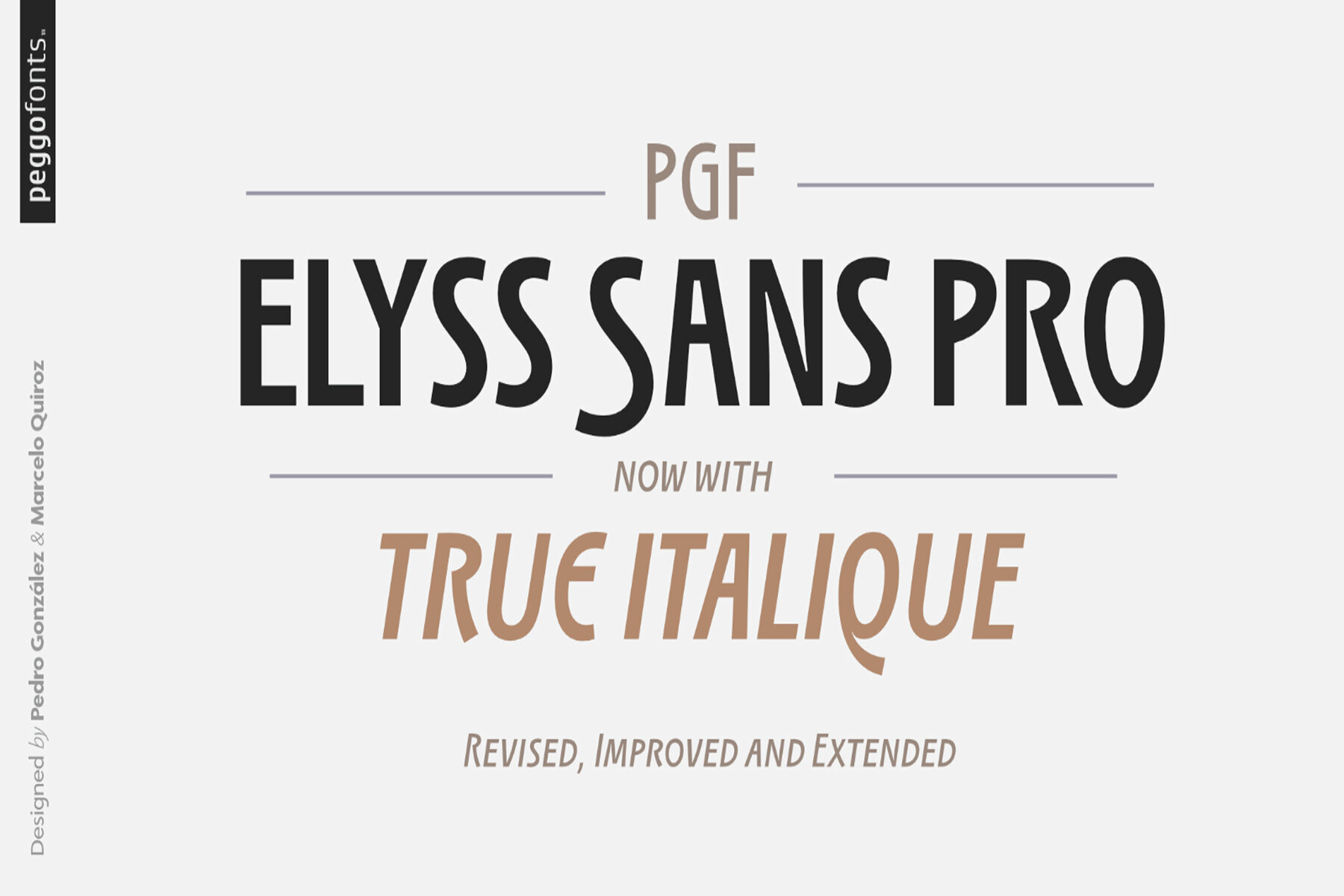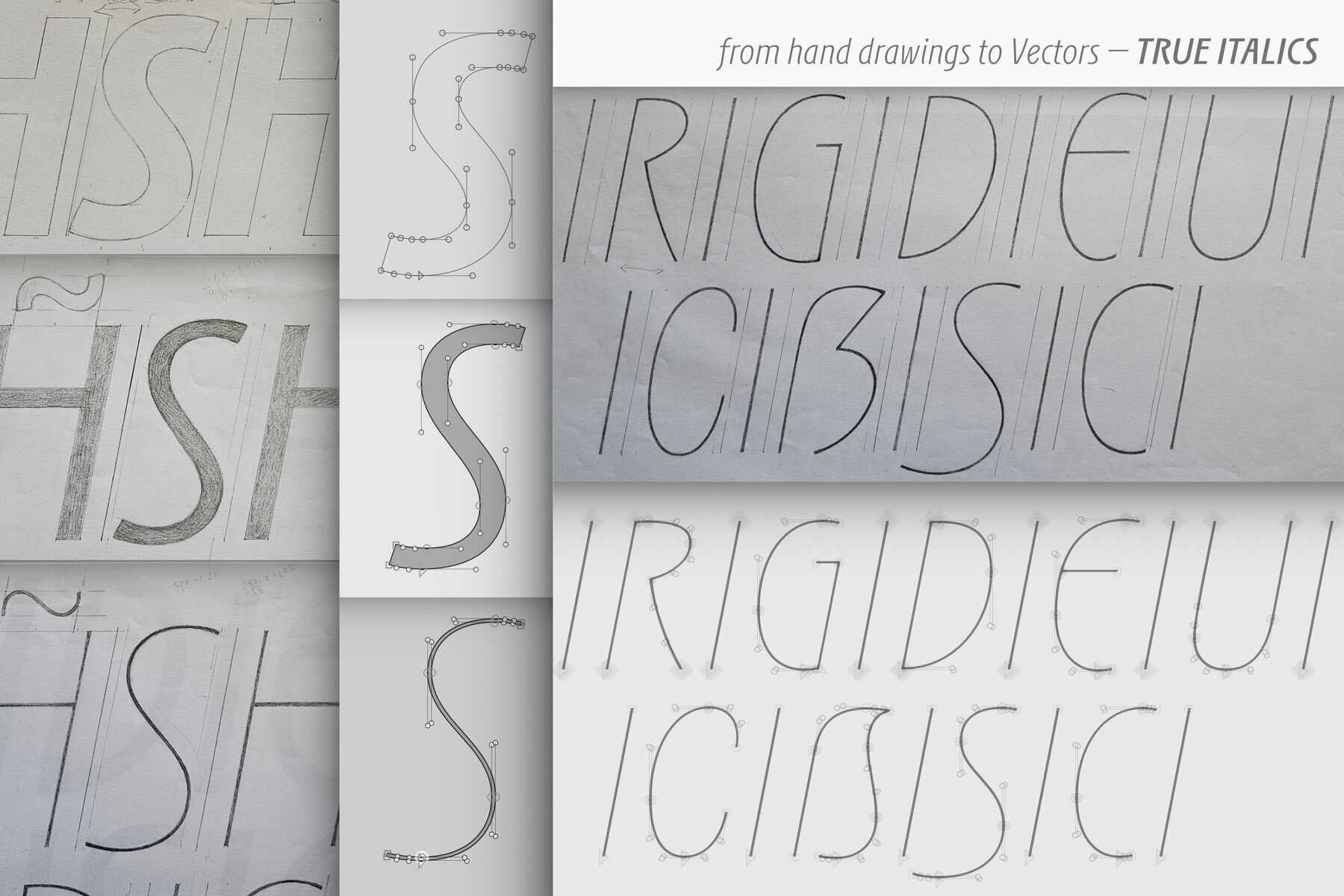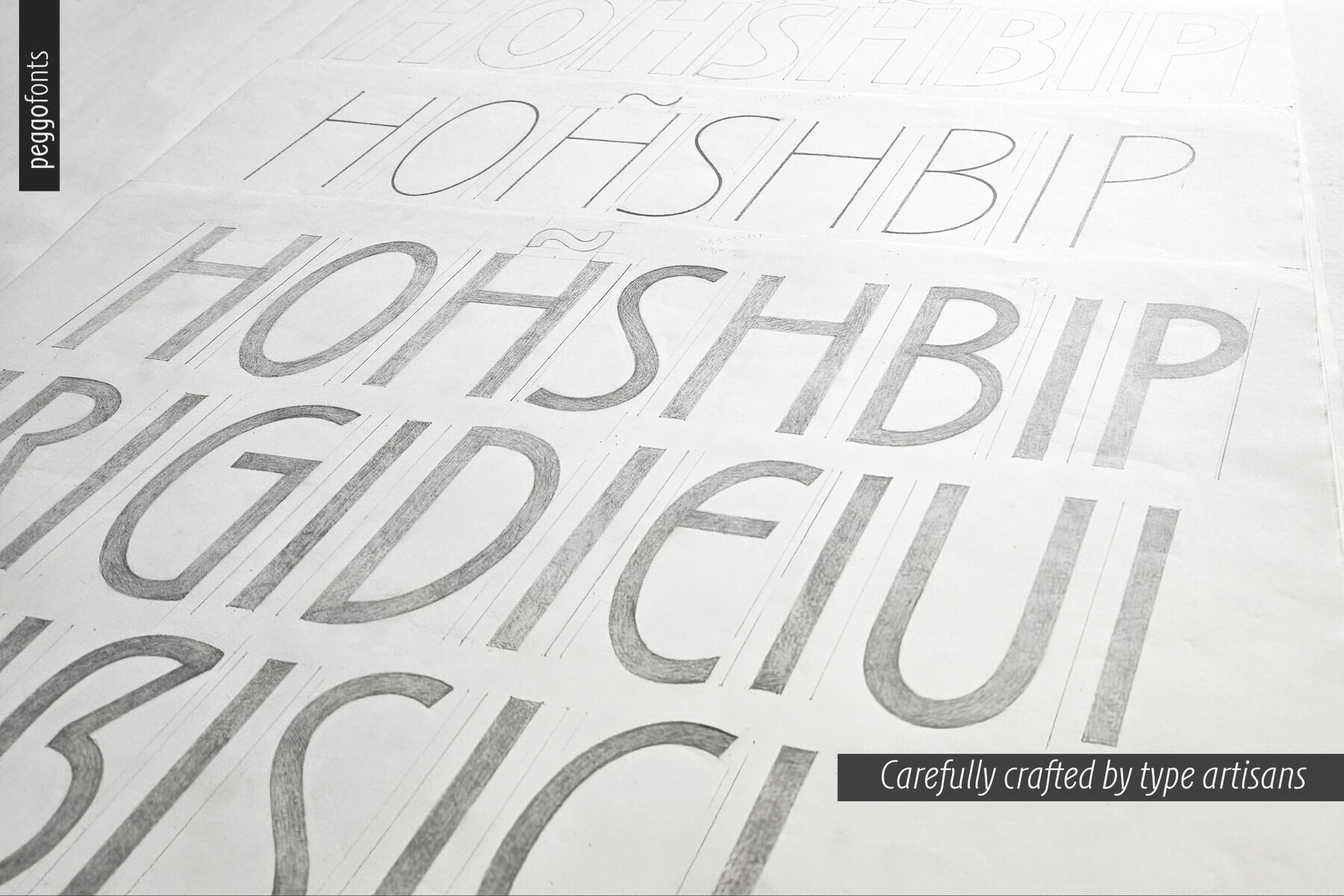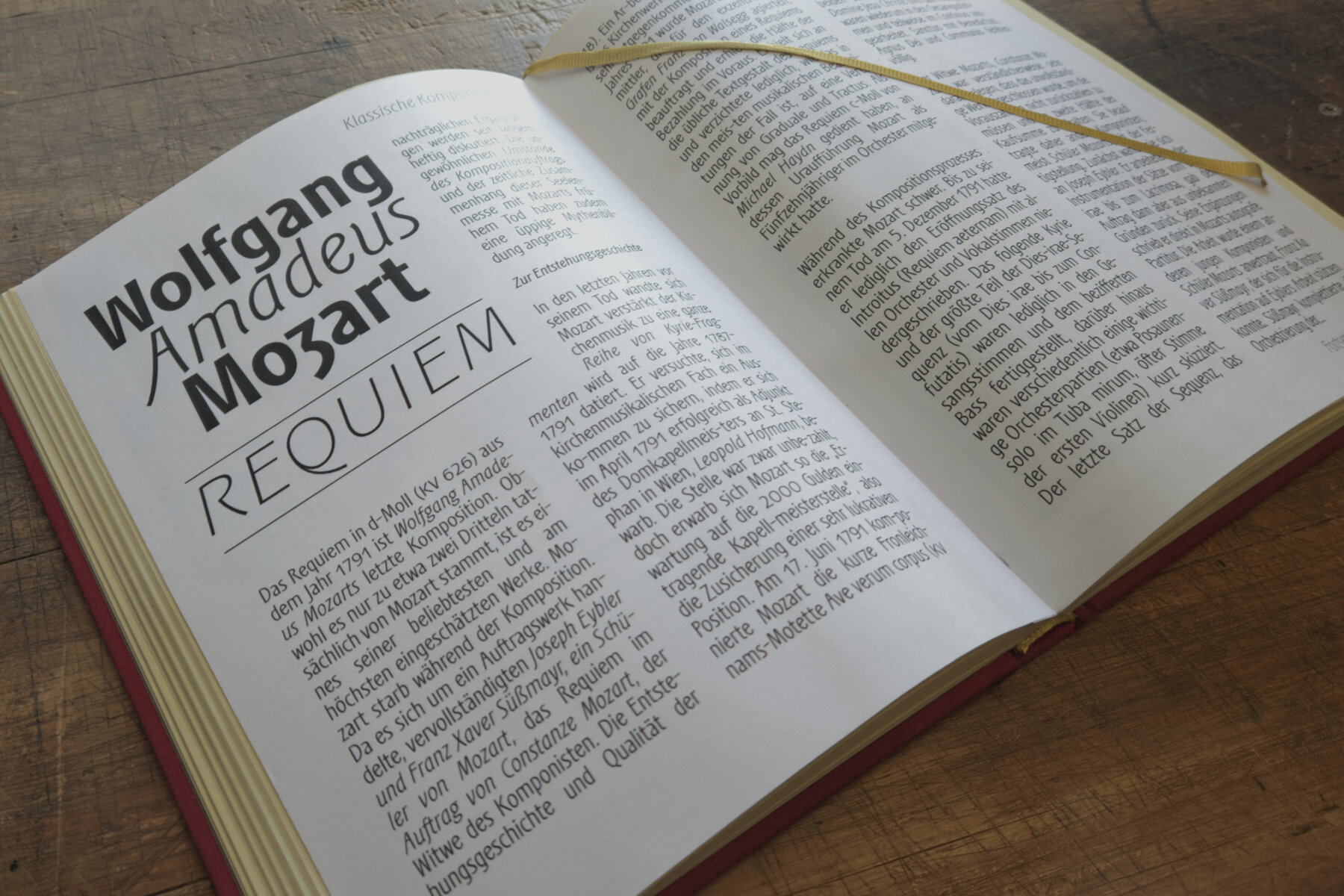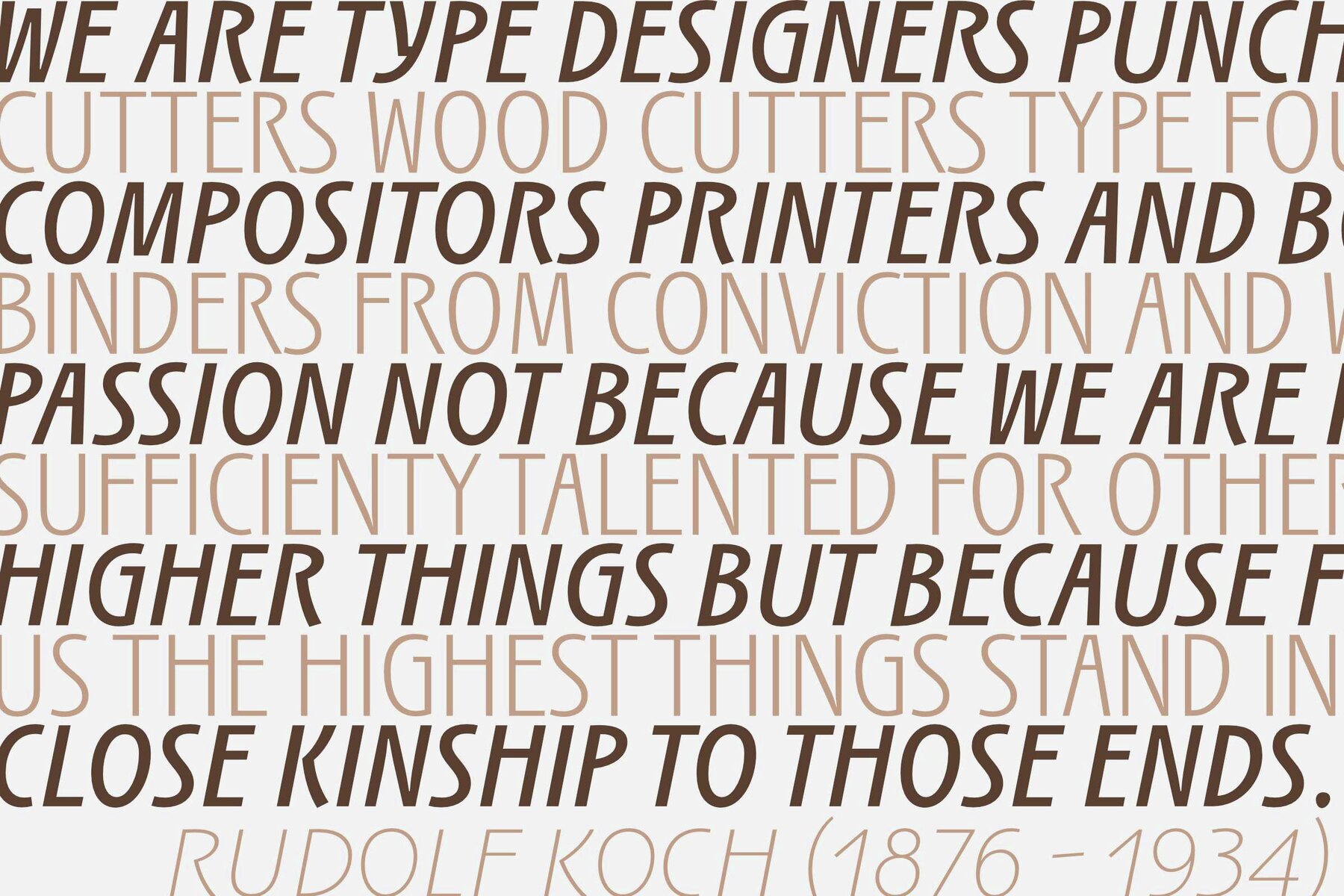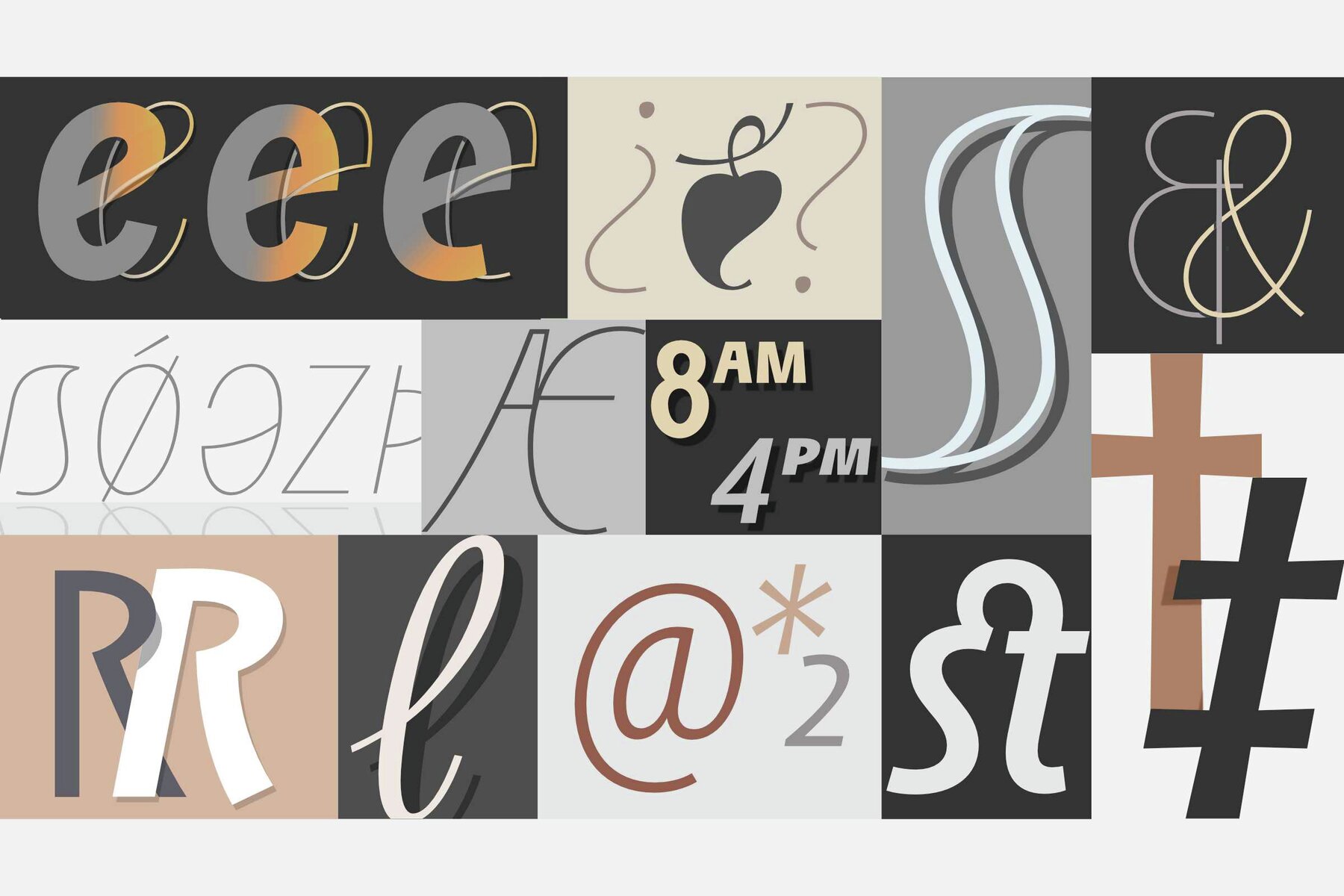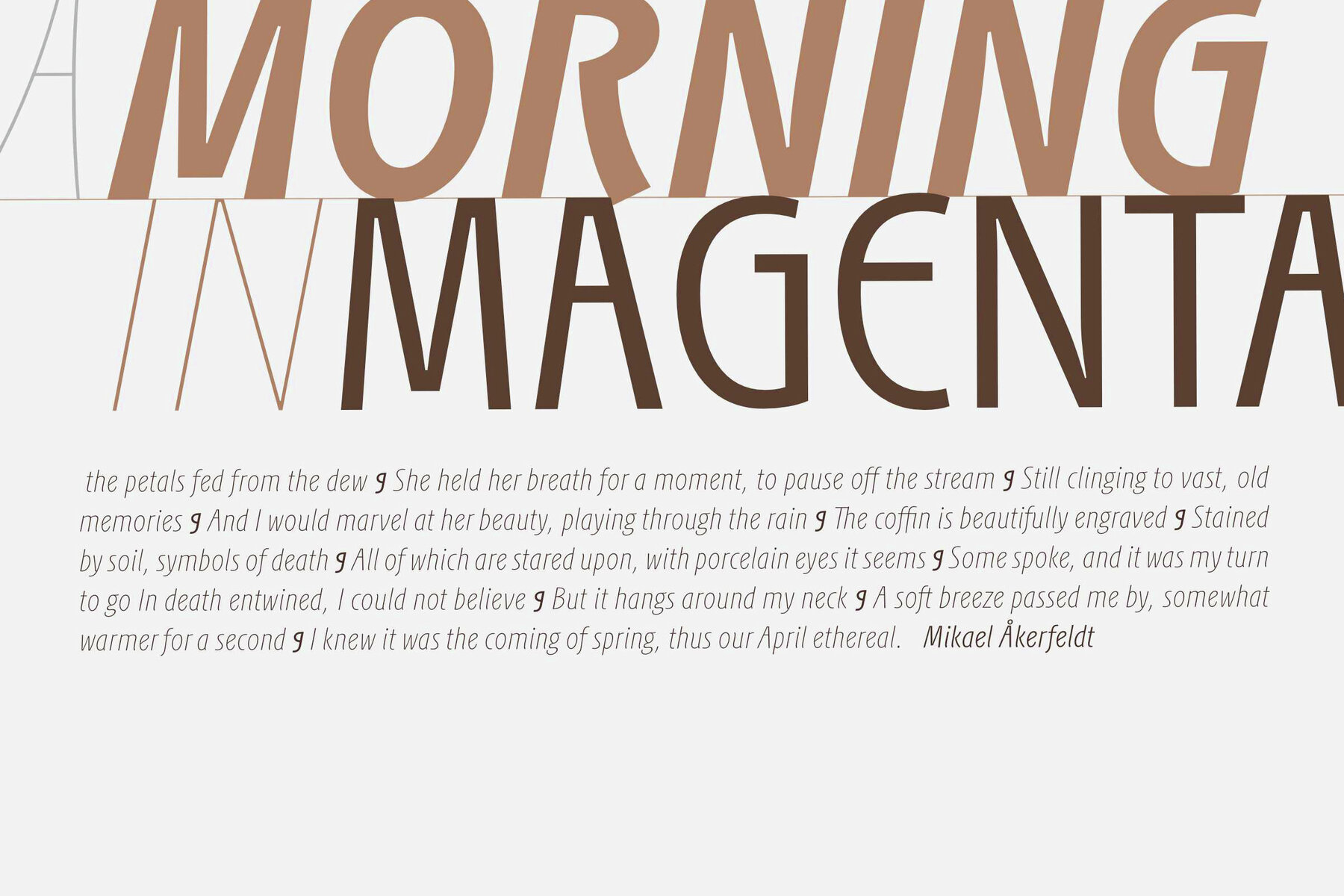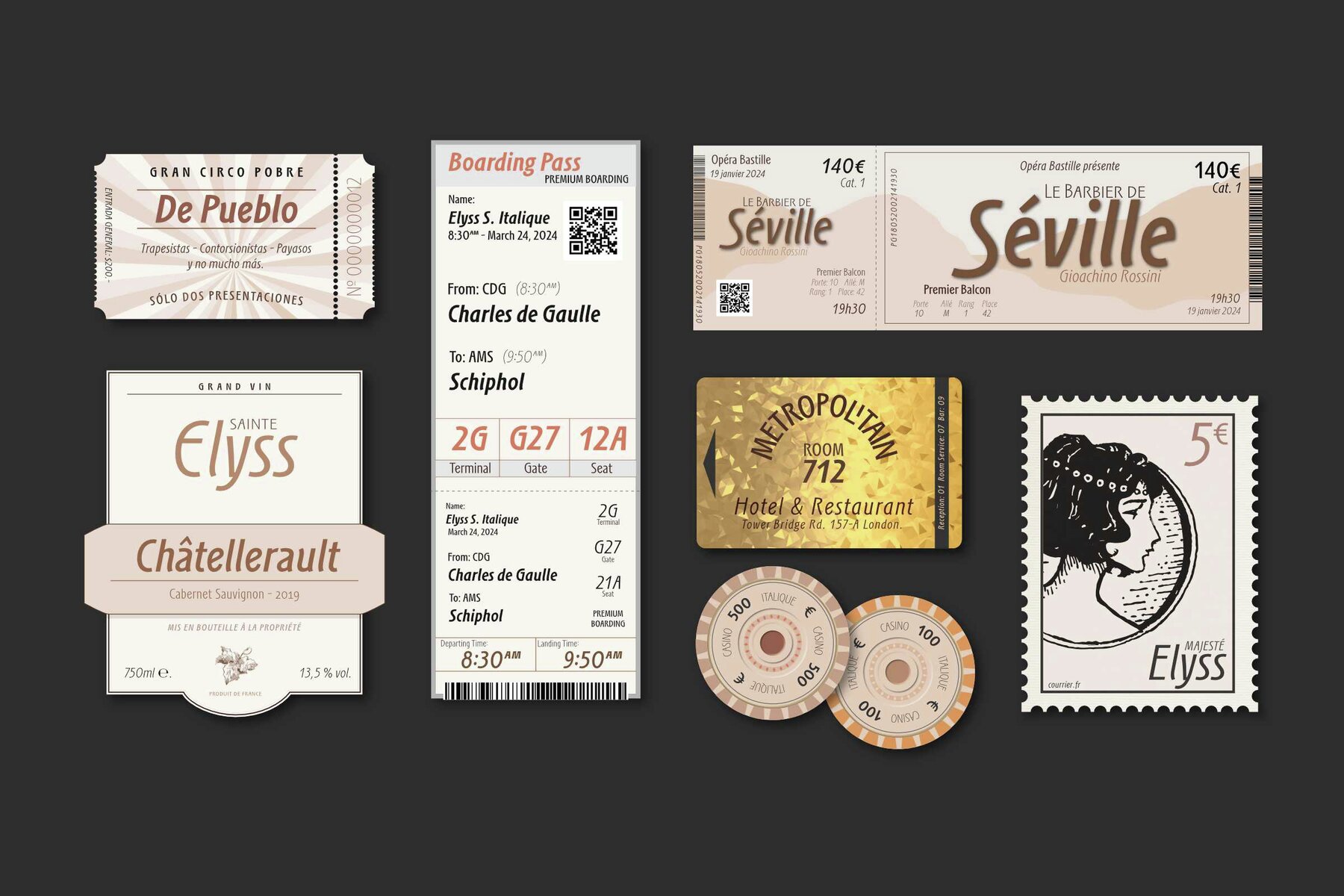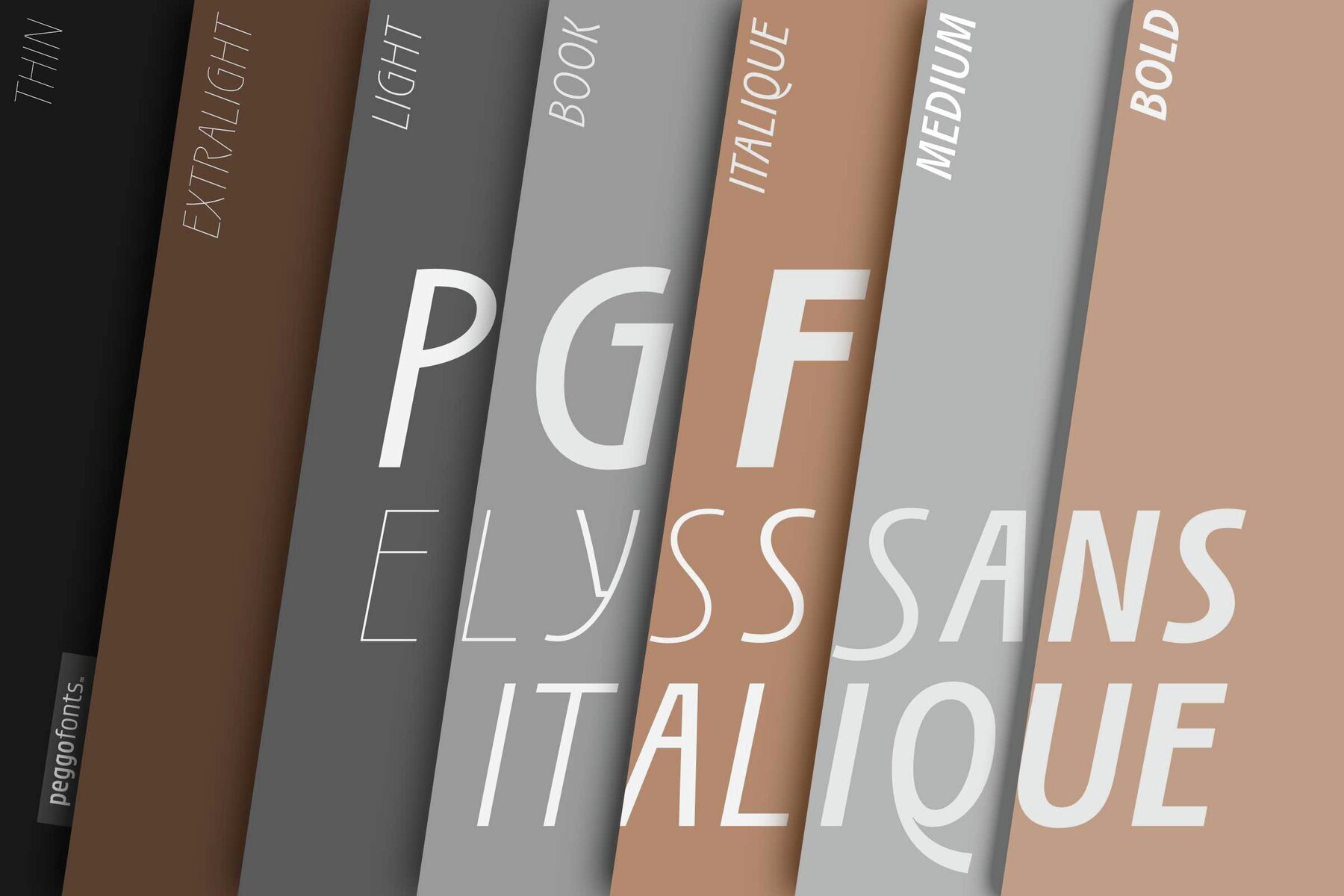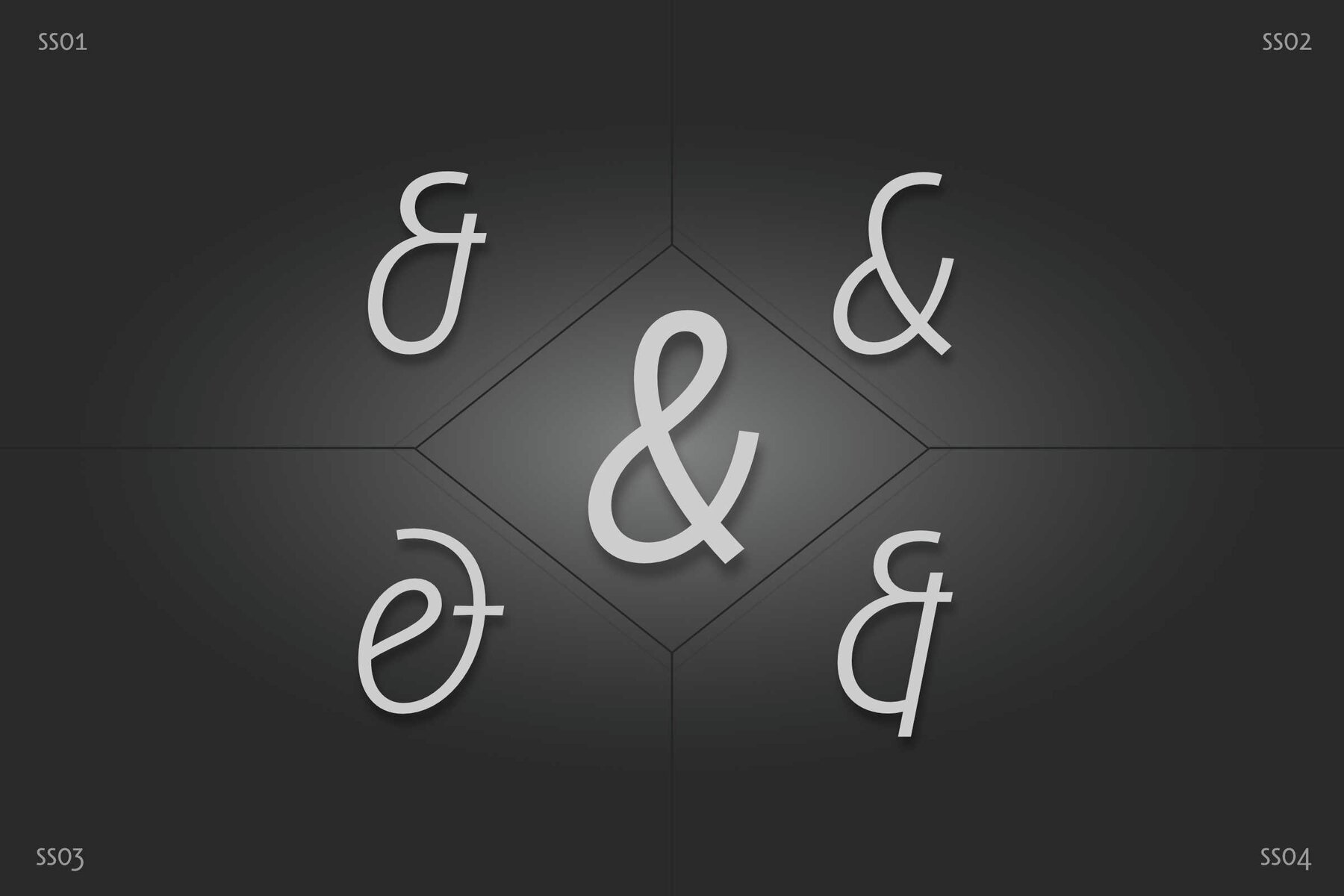
PGF Elyss Sans Pro Font
PGF Elyss Sans Pro is based on its grand parent PFG Elyss Roman as a natural evolution of its classic form, with clean and modern lines, sharing the same original Elyss DNA, PGF Elyss Sans Pro arrives to shine in labels, invitations, book headlines & titles, brochures, newspaper and magazine design, logotypes, branding and corporate design, web & UI-UX design, digital graphics and much more. Deploying a set with more than 1000 glyphs, suitable for over 200 languages. Including standard and discretionary ligatures; contextual alternates; lining, old style, smallcaps and tabular numerals; scientific and fractional forms; lining, smallcaps, tabular and oldstyle mathematical and currency symbols; localized language customization for azeri, german, dutch, polish, catalan, romanian, moldavian, turkish, and much more.